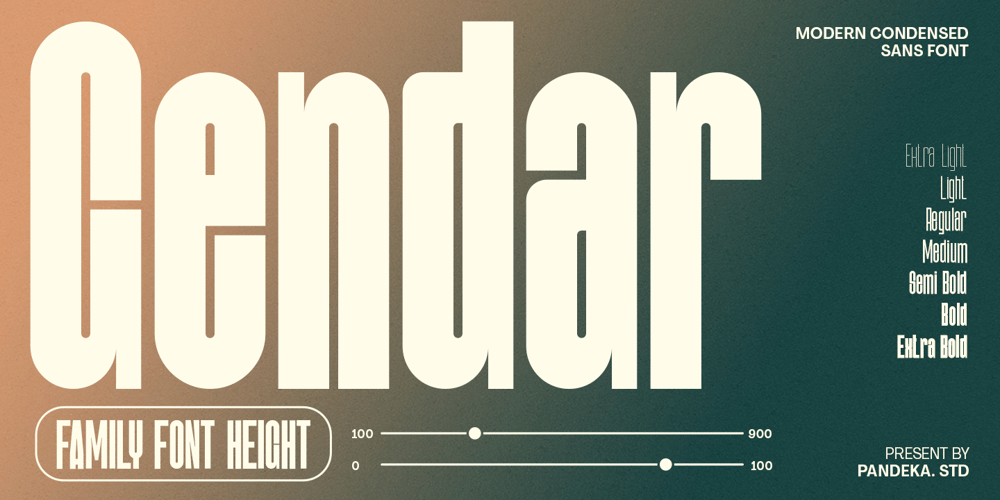
Gendar
Gendar font
Gendar Font Family was designed by Sagara Nararya and published by Pandeka Studio. Gendar contains 7 styles and family package options. Introducing Gendar! – An ultra-condensed sans serif with a style that is very different from the othersGendar is a condensed sans-serif typeface created to be used for bold titles with distinctive shapes in a display font way to make it legible for contemporary use. Come with single-weight, legible, and expressive shapes. Its glyph catalog provides an easy-to-compose system for Latin languages with high x-height and tight line spacing.Gendar comes in 6 font styles (Extra Light, Light, Regular, Medium, SemiBold, Bold, ExtraBold), Its weight is superior in posters, social media, headlines, magazine titles, clothing, large print formats – and wherever you want to be seen. Inspired by the style of design that is currently popular, this is the answer to all the needs of every idea that you will pour into this modern era!What’s Included? Gendar Main Files Family Font (Extra Light, Light, Regular, Medium, SemiBold, Bold, ExtraBold) Unique Gylph Letters Instructions (Access special characters in all apps, even in Cricut Design) Accessible in Adobe Illustrator, Adobe Photoshop, Microsoft Word even Canva! PUA Encoded Characters. Fully accessible without additional design software Language Support: Danish, English, Estonian, Filipino, Finnish, French, Friulian, Galician, German, Gusii, Indonesian, Irish, Italian, Luxembourgish, Norwegian Bokmål, Norwegian Nynorsk, Nyankole, Oromo, Portuguese, Romansh, Rombo, Spanish, Swedish, Swiss-German, Uzbek (Latin)Feel free to follow, like and share. Thanks so much for checking out my shop!Have a great day!Pandeka Studio